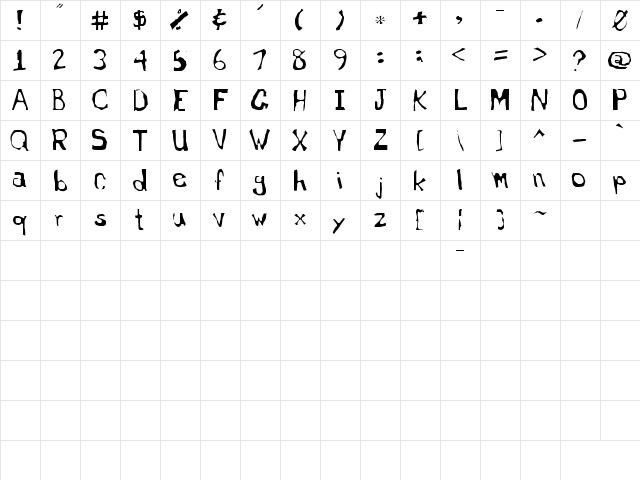
Dyslexic English Teacher Regular
Design Context for Dyslexic English Teacher Typeface
Dyslexic English Teacher is a composed and adaptable typeface that performs quietly and consistently across a wide range of design contexts.